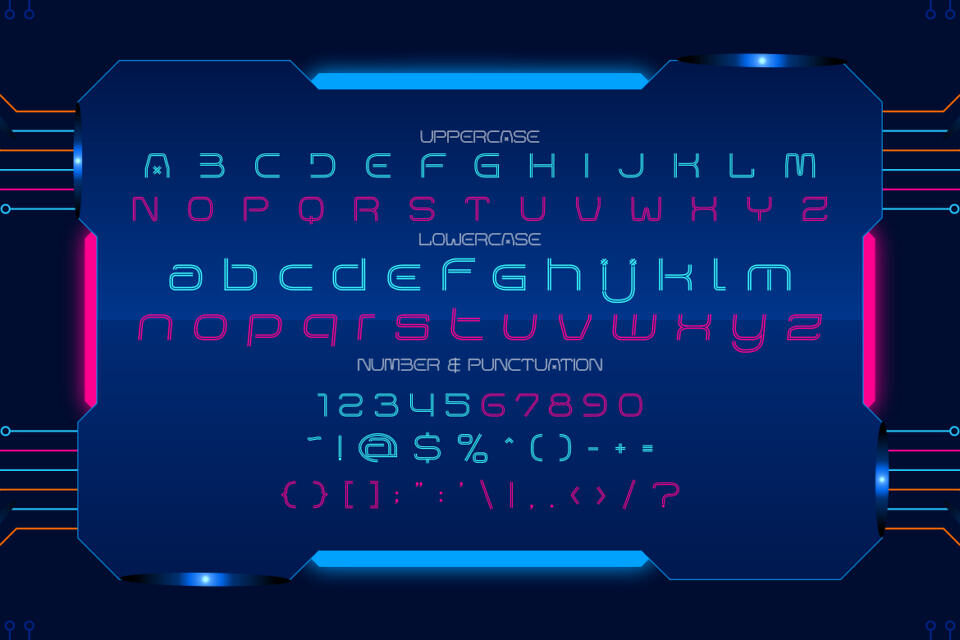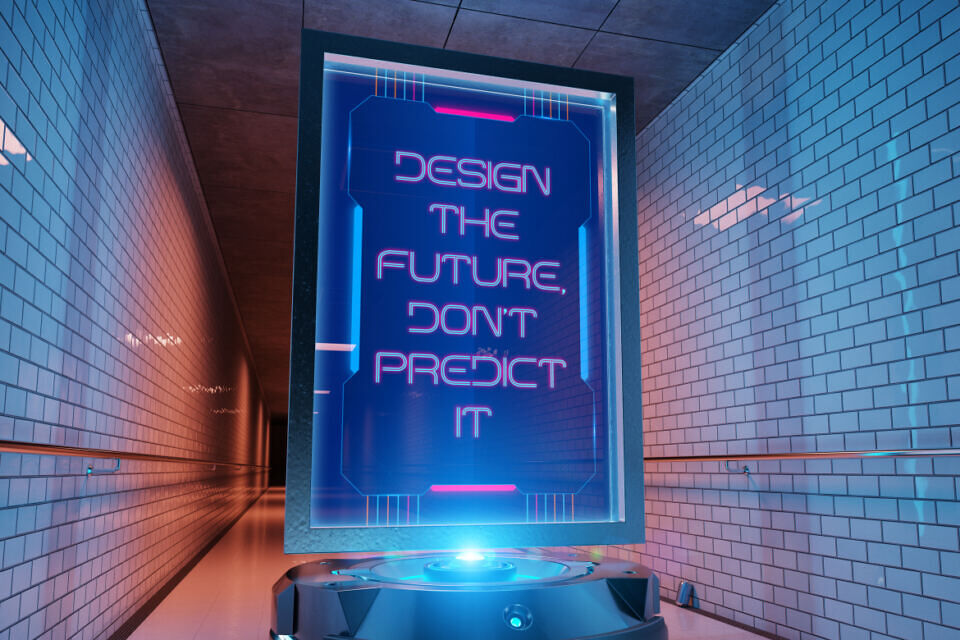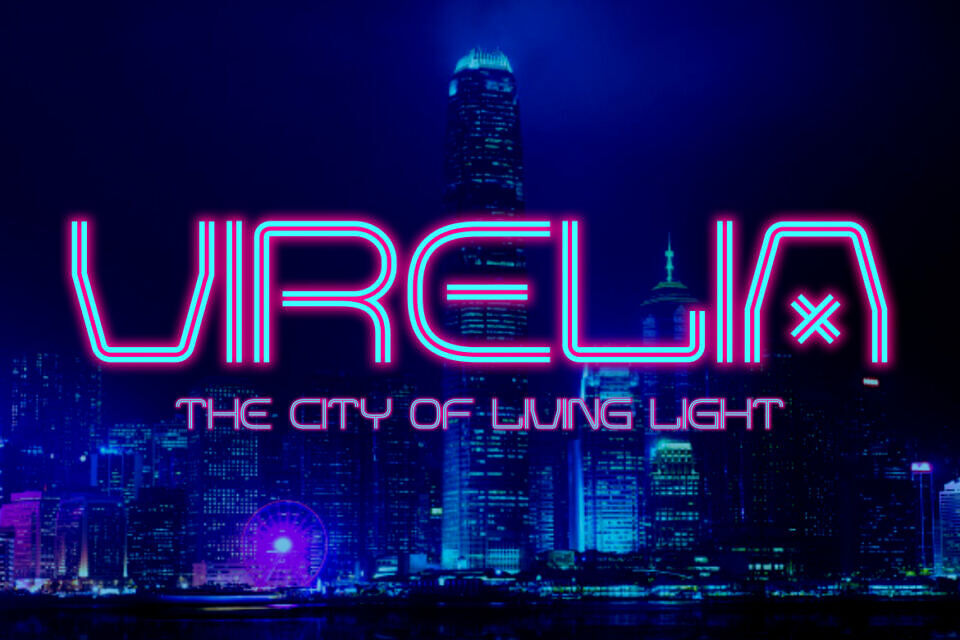
Matrix Pulse Font
Matrix Pulse is a bold typeface crafted to embody the vibrant aesthetic of cyberpunk culture and digital futurism. Each letter is drawn with clean geometric lines and accented by neon strokes, creating a glowing illusion that feels alive on any design.
The font style merges modern techno shapes with retro sci-fi vibes, giving a balance between futuristic minimalism and nostalgic arcade charm. The uppercase and lowercase letters share a consistent neon rhythm, while numbers and punctuation extend its usability across digital and print projects.